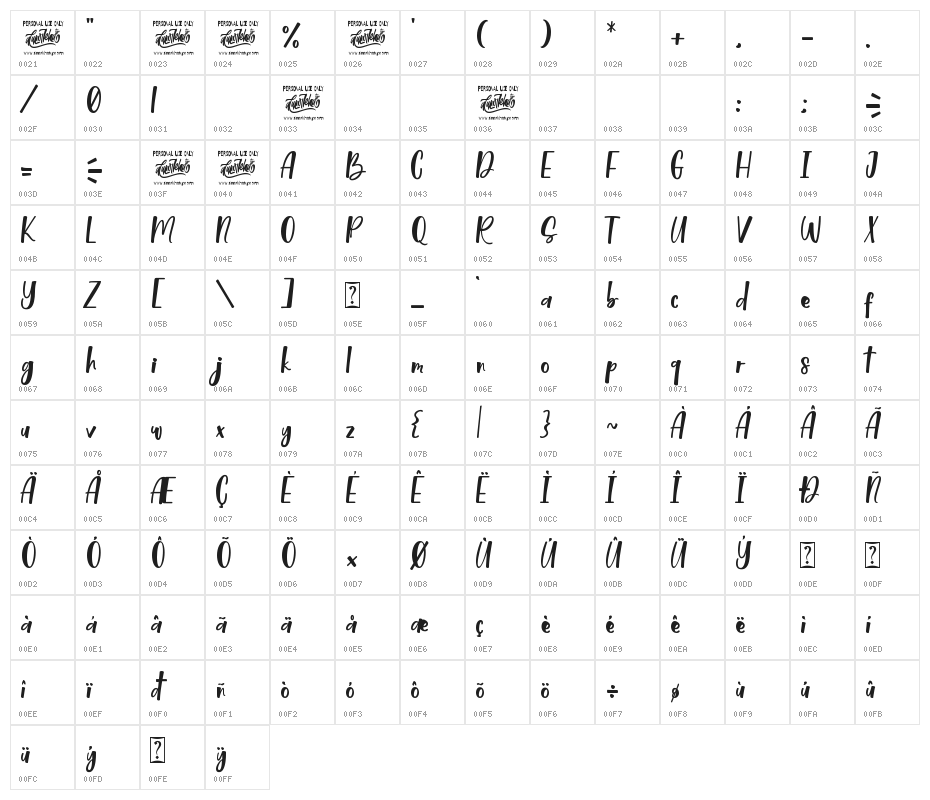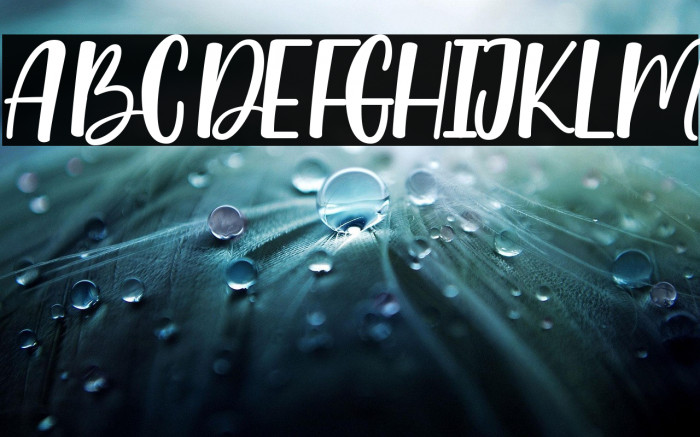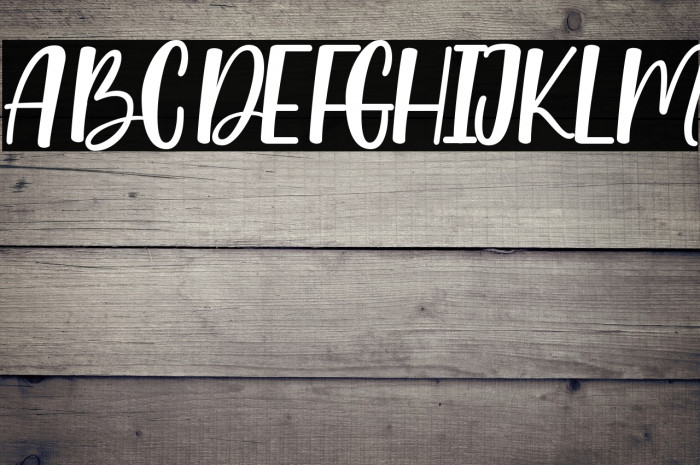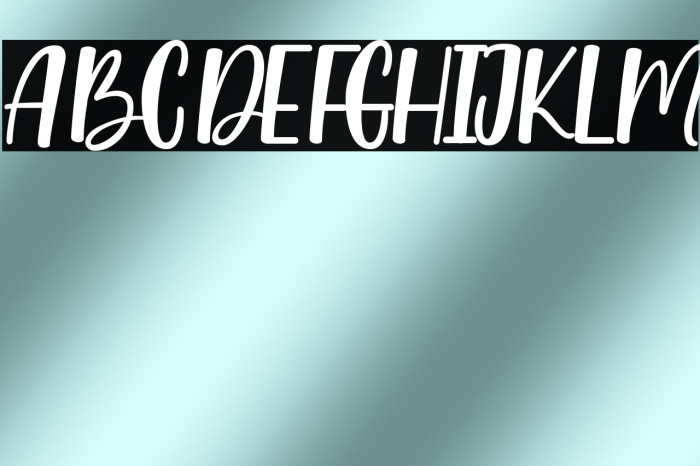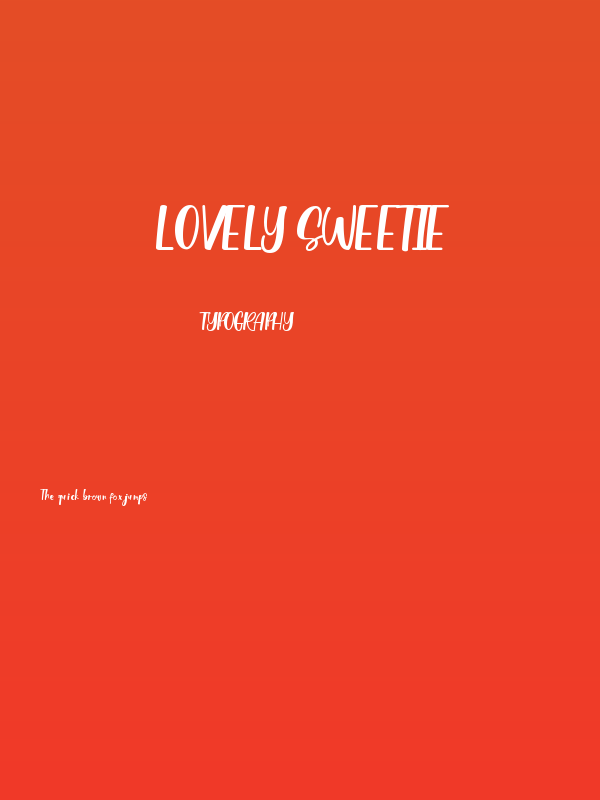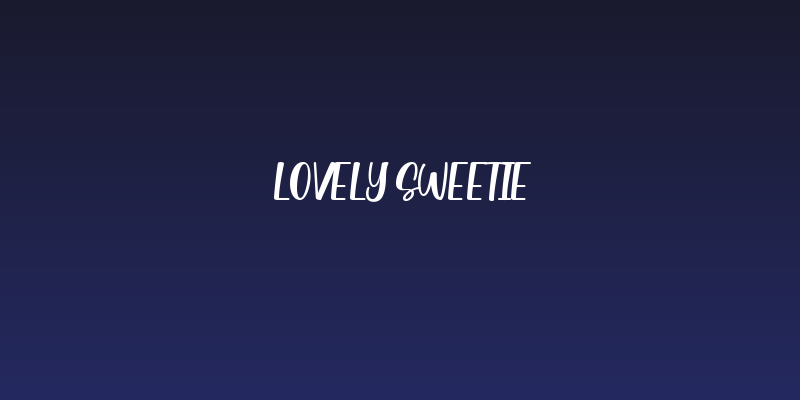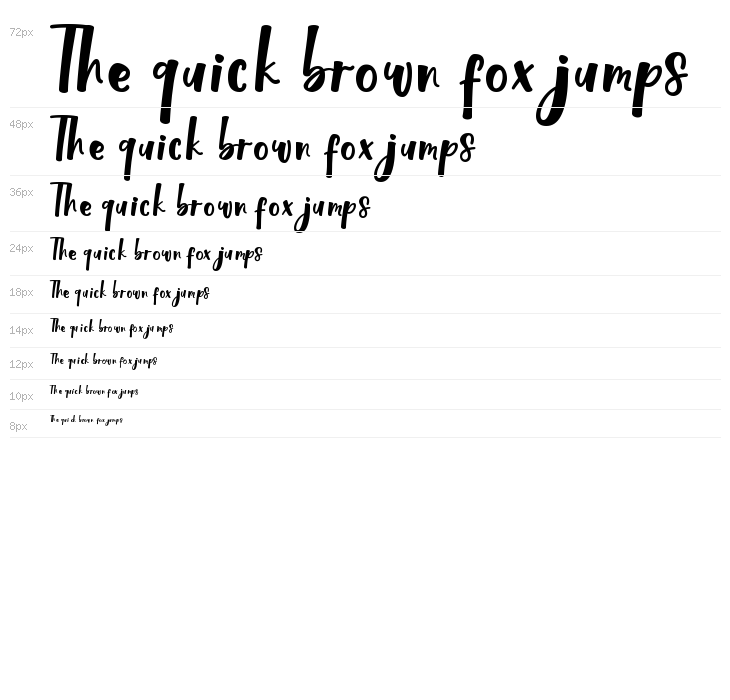
Lovely Sweetie Font
Lovely Sweetie Description
This font features a playful and modern handwritten style, characterized by its fluid and dynamic strokes. The uppercase letters are bold and slightly slanted, giving a sense of movement and energy. The lowercase letters maintain a consistent style, with rounded edges and a casual feel. The numbers and special characters complement the overall design, maintaining the same lively and informal aesthetic. This font is ideal for projects that require a personal and friendly touch, such as invitations, greeting cards, and branding materials.
| Proposed Projects | Ideal for invitations, greeting cards, branding materials, and social media graphics. |